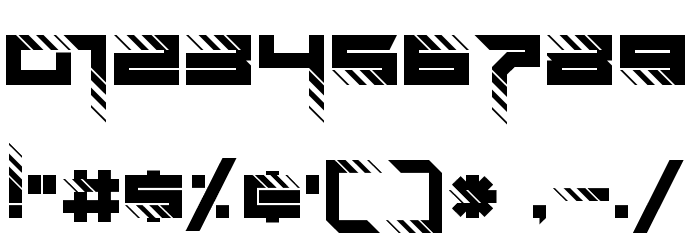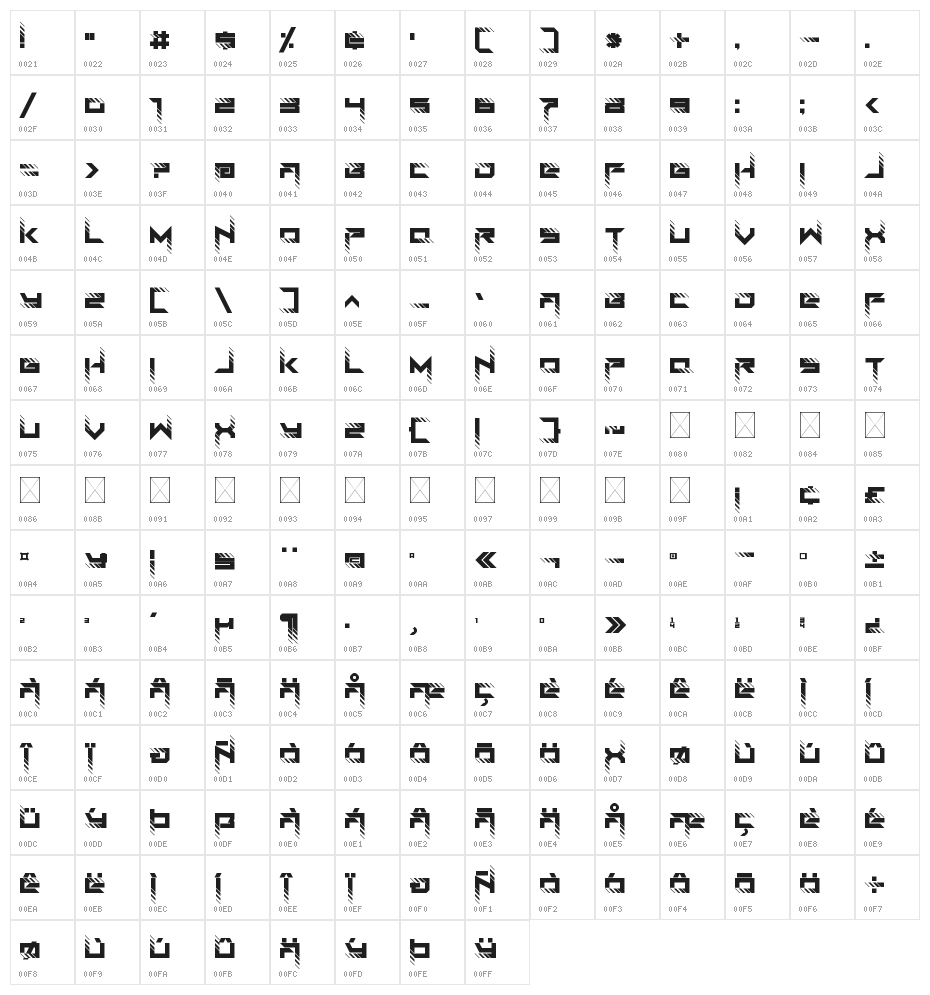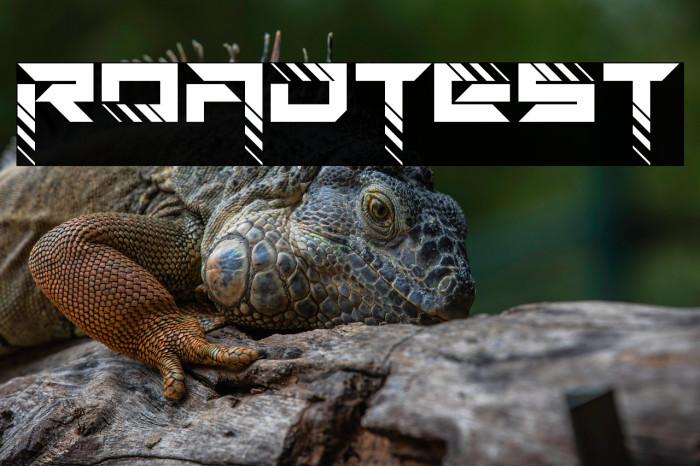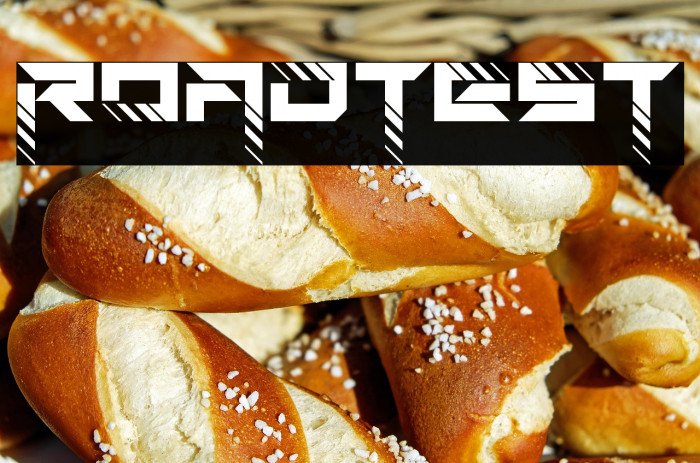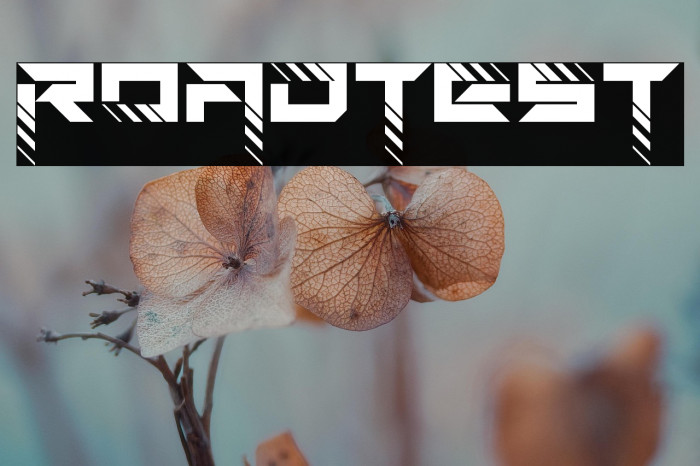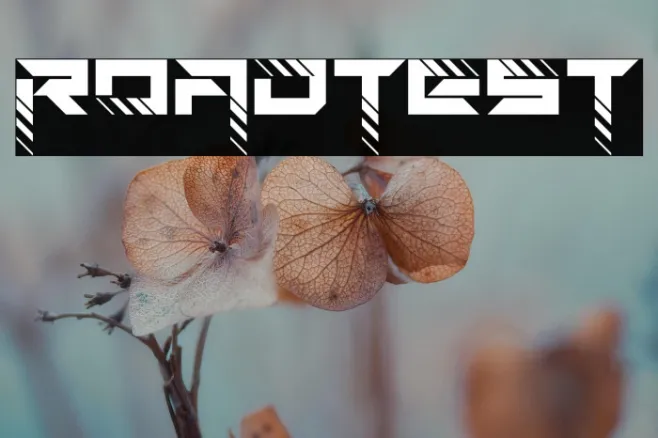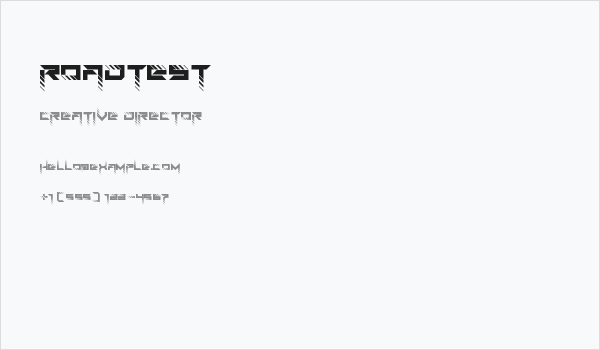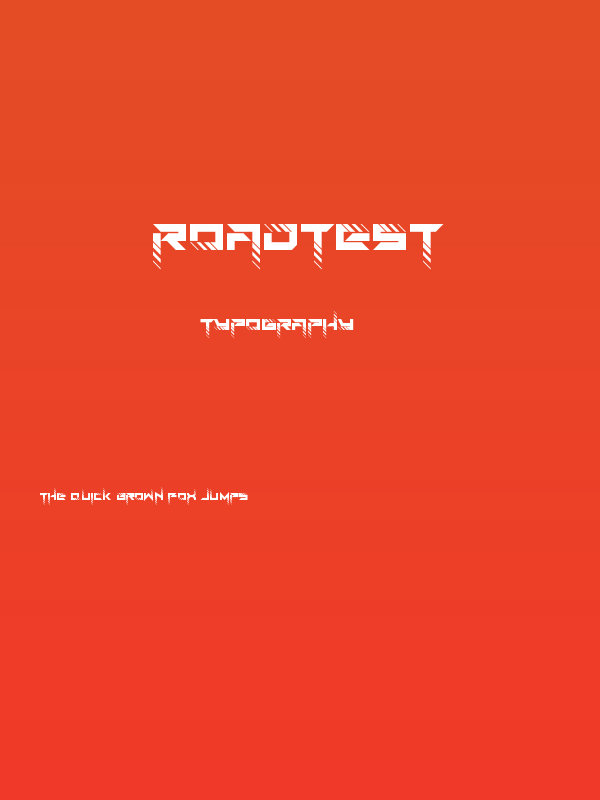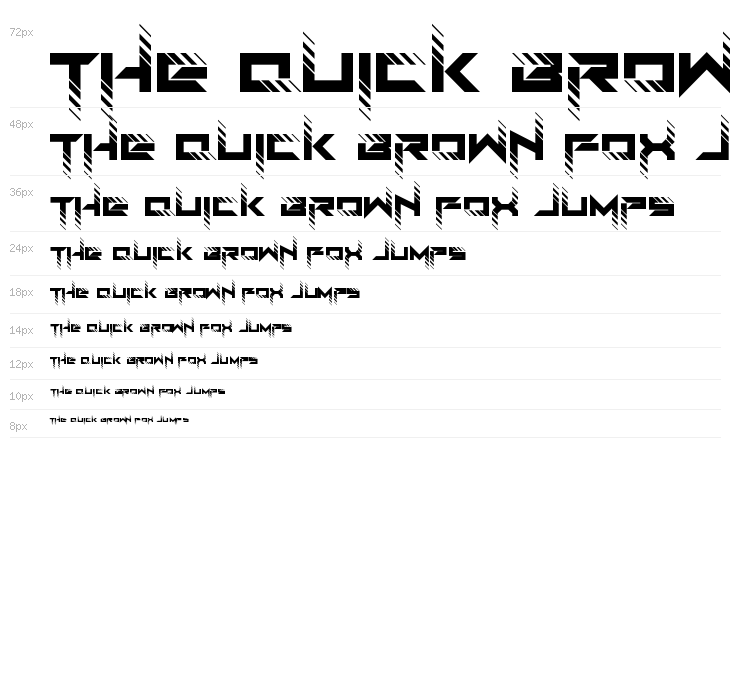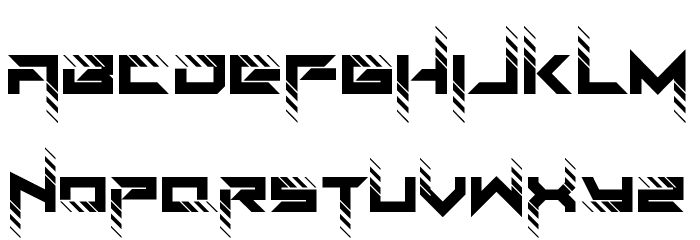
RoadTest Font
RoadTest Description
This font features a bold, geometric design with a futuristic and industrial aesthetic. Each character is constructed with sharp angles and diagonal lines, creating a sense of movement and dynamism. The use of solid black shapes interspersed with white diagonal stripes gives it a unique, high-tech appearance. This font is highly stylized, making it ideal for projects that require a modern and edgy look. The characters are tightly spaced, enhancing the compact and cohesive feel of the font. Its distinct style makes it suitable for creative and bold design projects.
| Proposed Projects | Ideal for technology branding, video game titles, sci-fi movie posters, and edgy graphic design projects. |